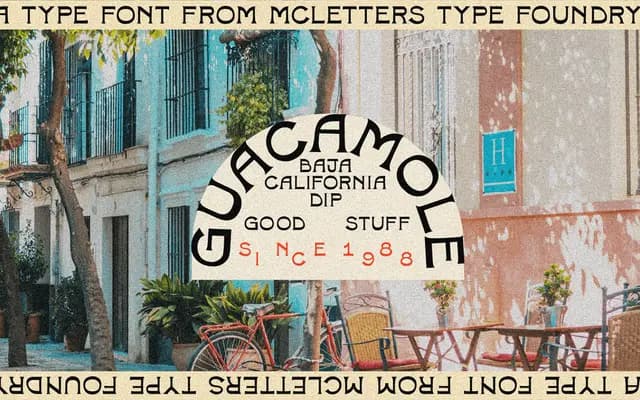
MC Guacamole
A decorative display typeface from McLetters, available under commercial and app licensing tiers.
Little technical detail is available from the product page, but MC Guacamole is sold by McLetters as a paid display font with licensing options ranging from individual use to large organisations. Pricing spans £12 to £760 depending on company size and intended use. Its name suggests a playful or expressive character suited to informal display contexts.
The name and limited page content suggest a decorative or novelty display typeface; no structural details are available to place it more precisely within a subcategory.